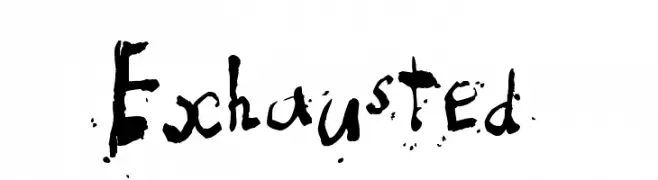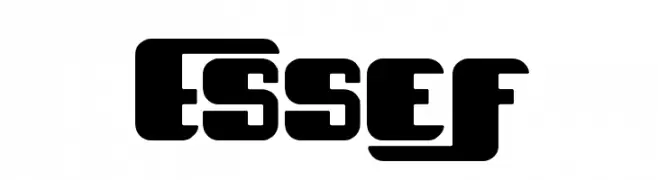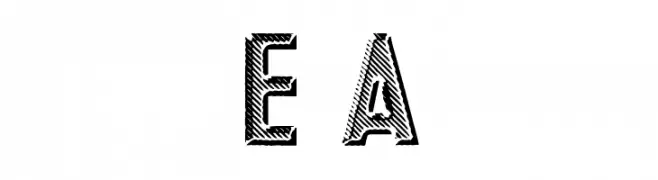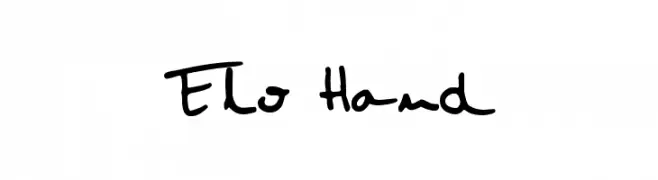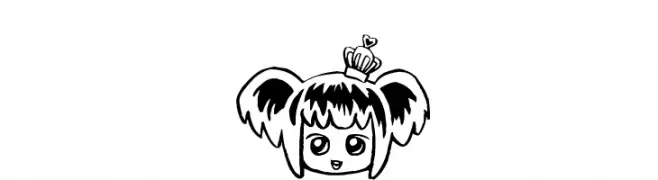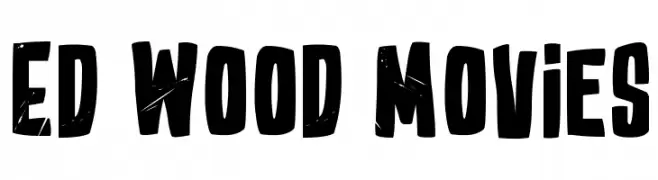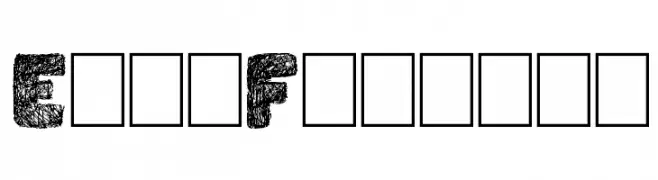
A dynamic, brush-stroke font with an expressive, hand-drawn style.
A bold serif font with a textured, diagonal line pattern for a modern artistic look.
A bold, modern font with geometric elements and a strong visual impact.
A bold, decorative font with a hatched pattern and shadow effect for a dynamic look.
A futuristic, geometric font with sharp angles and segmented design.
A casual, handwritten font with a playful and informal style.
Cartoonish dingbat font of expressive female faces.
A bold, distressed font with a vintage horror movie poster style.
A bold, textured font with a hand-drawn, chalk-like appearance.
A dynamic, brush-style font with bold, expressive strokes.